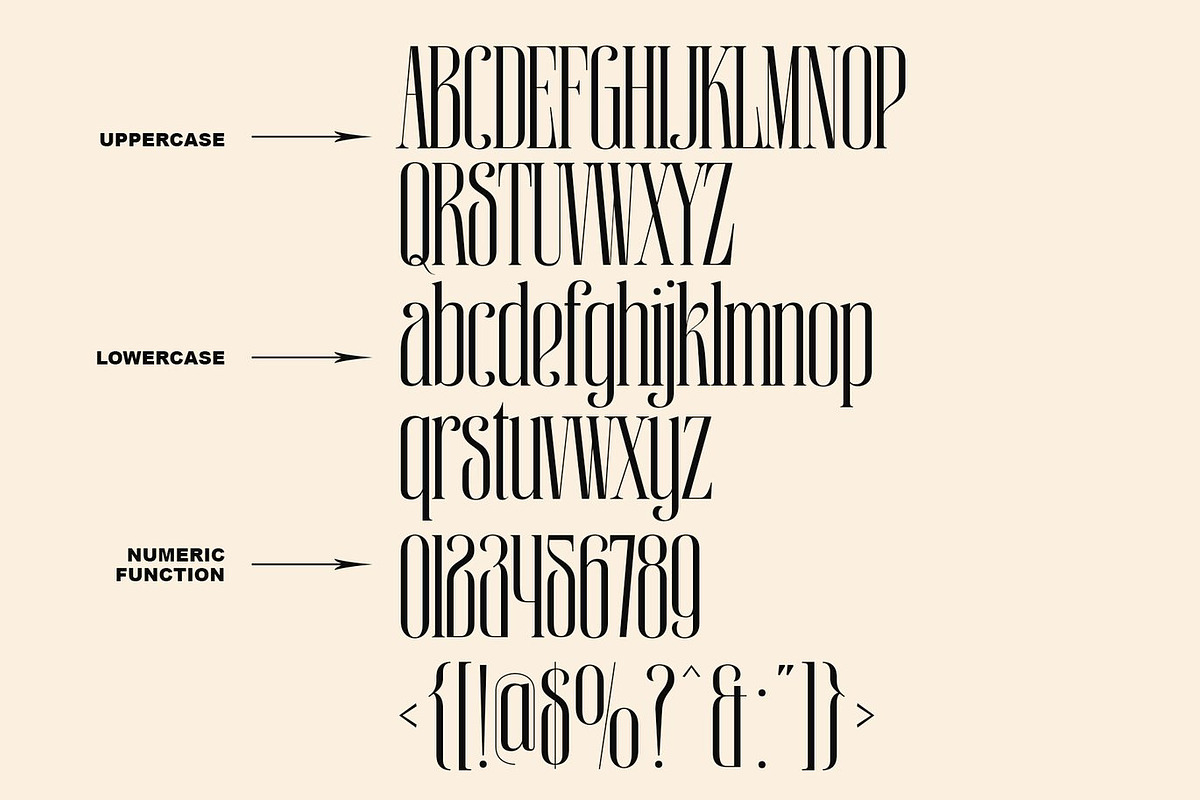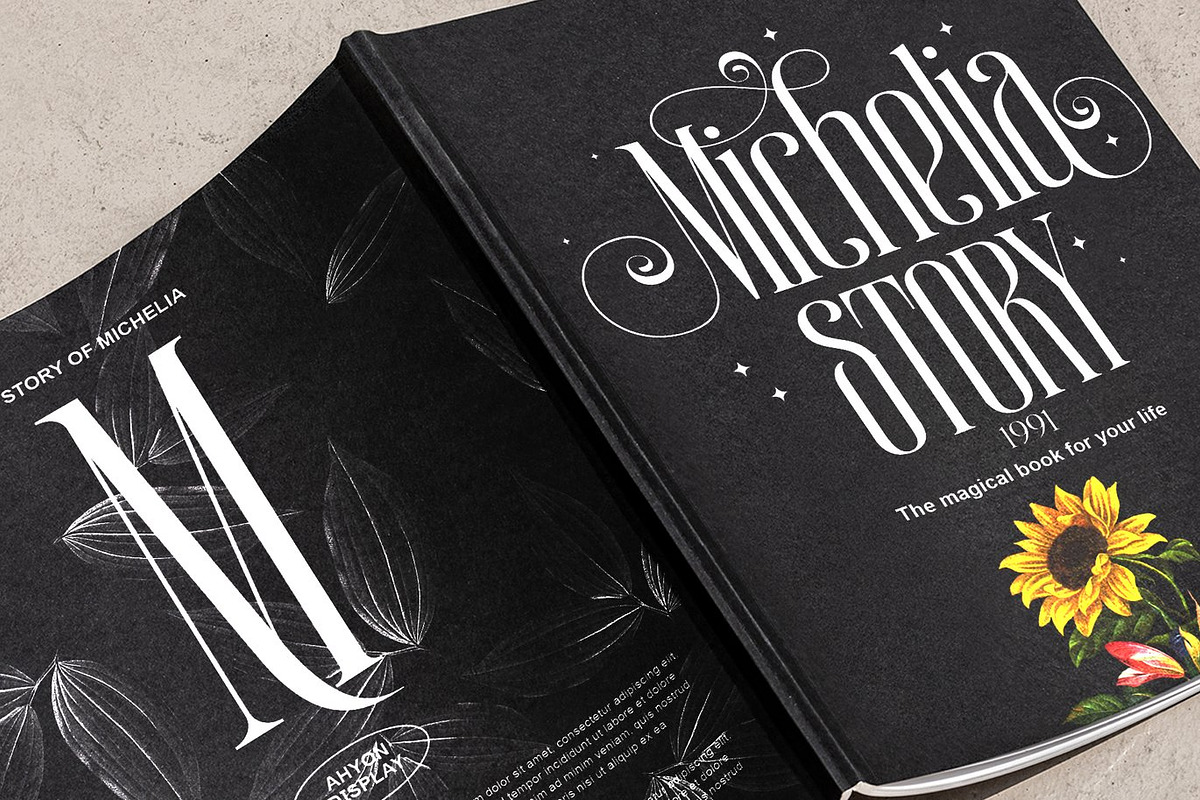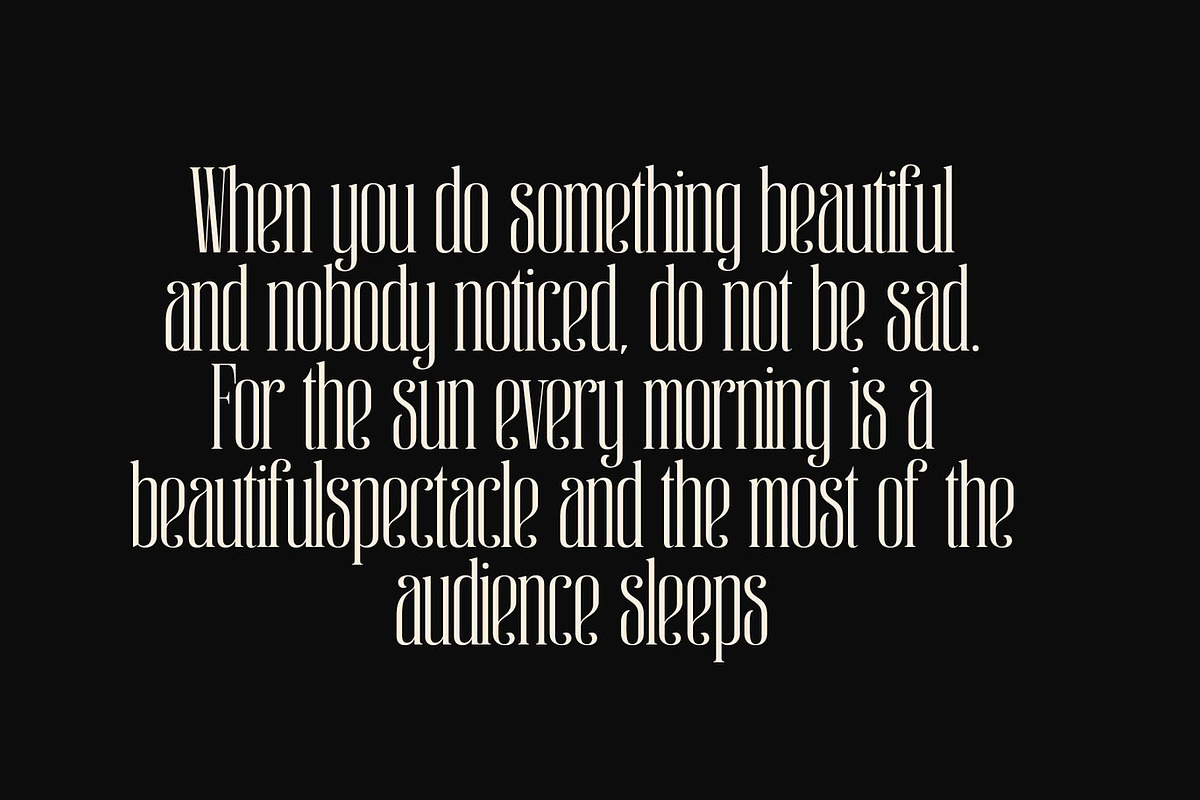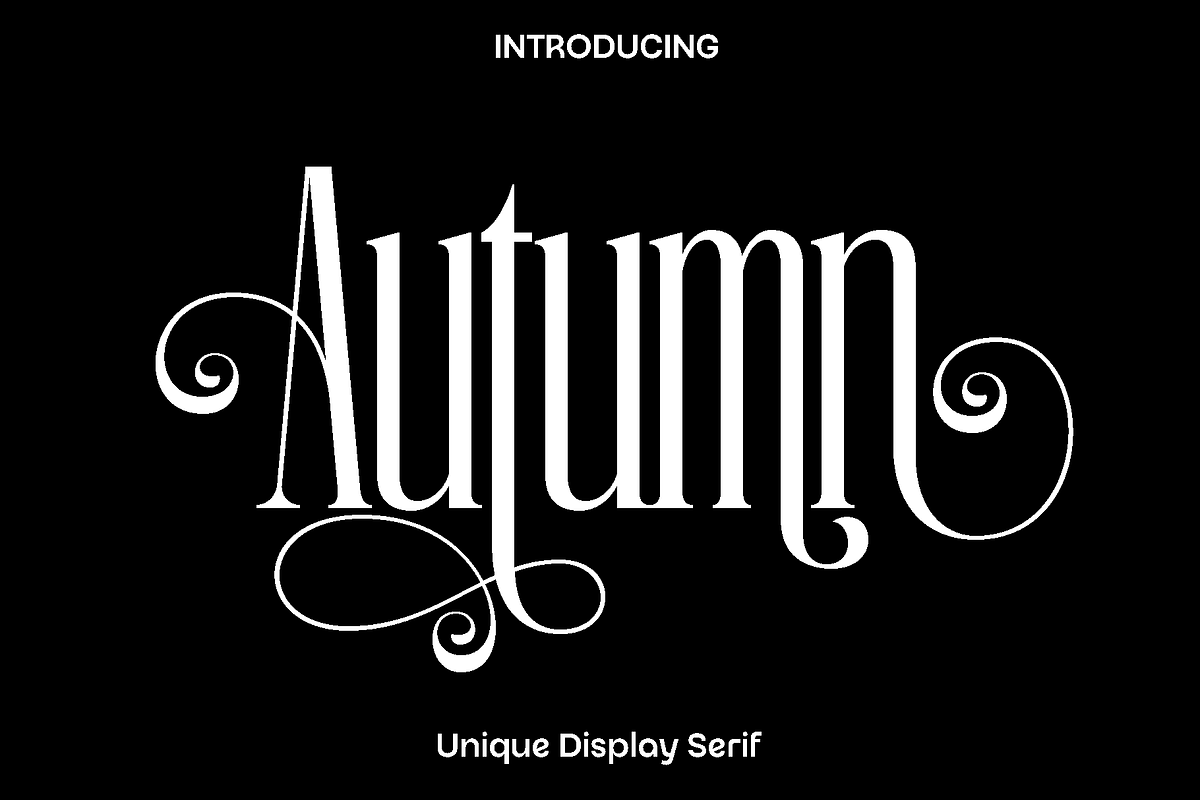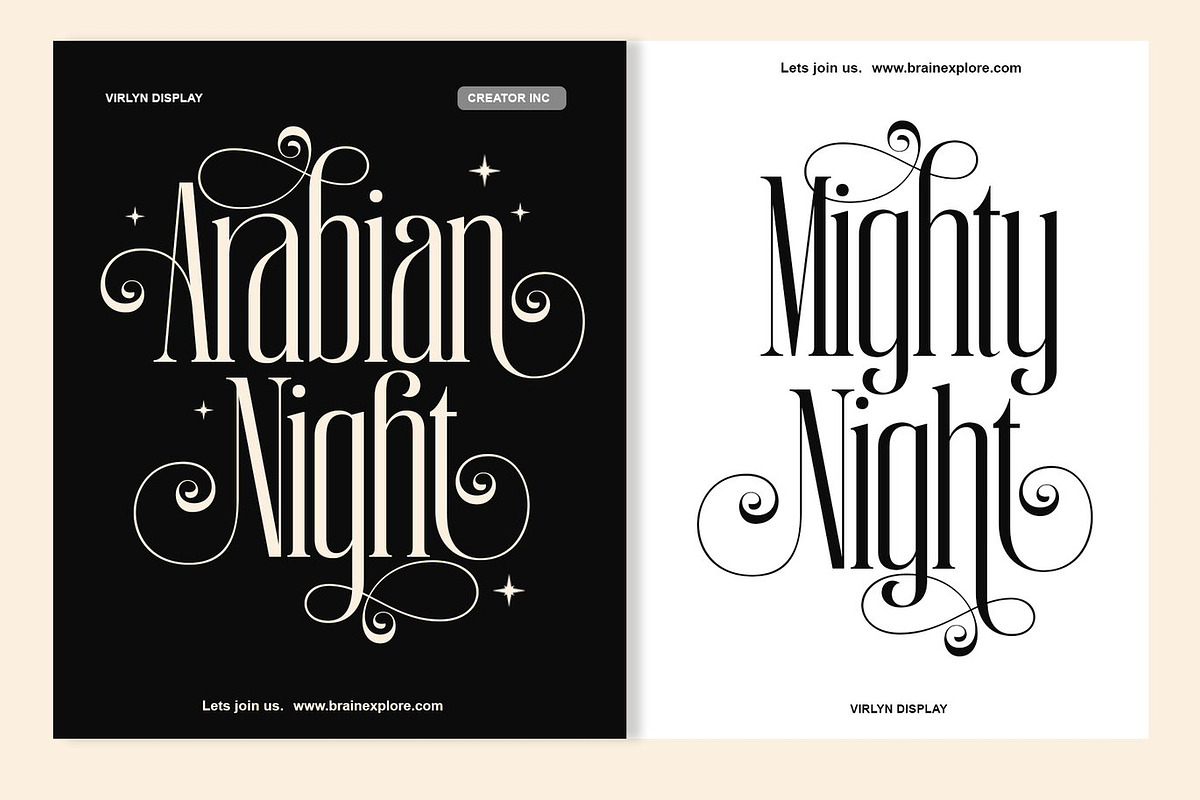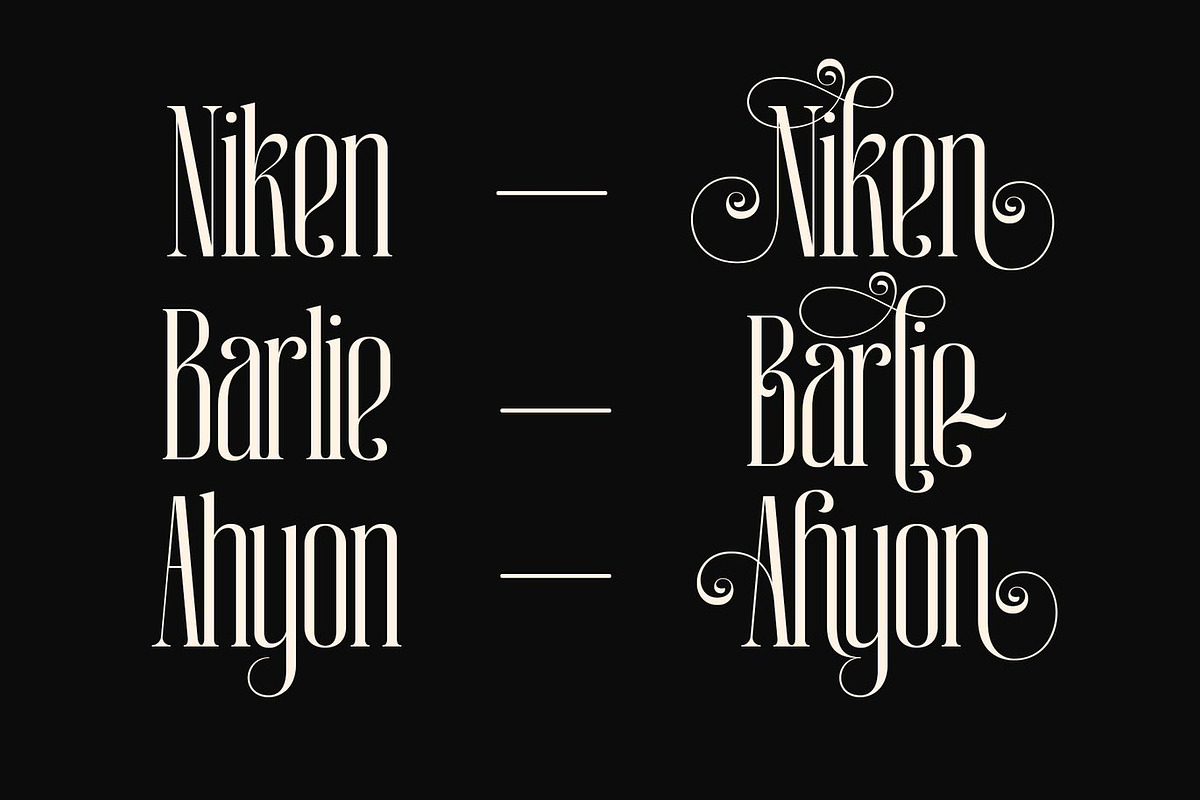
Autumn - Unique Display Serif
Autumn is a beautifully crafted font inspired by the warm and calming atmosphere of the autumn season. Just like the golden leaves and soft sunlight of fall, this typeface carries a natural elegance and a welcoming character that adds charm and personality to any design. Its balanced letterforms and smooth flow create a refined look that feels both modern and timeless.
Designed with versatility in mind, Autumn works perfectly across a wide range of creative projects. It shines in book covers, magazines, logos, branding identities, photography overlays, inspirational quotes, blog headers, posters, and advertising materials. Whether you are creating a sophisticated editorial layout or a stylish brand presentation, Autumn helps deliver a polished and professional visual impression.
Autumn combines clarity with expressive style, making it suitable for both bold headlines and elegant text compositions. The carefully designed characters, stylistic alternates, and ligatures give designers the freedom to craft unique and visually engaging typography. Its harmonious structure ensures readability while maintaining a strong aesthetic presence.
With its warm personality and modern appeal, Autumn brings creativity and elegance together in one versatile font. It is an excellent choice for designers who want their projects to feel inviting, stylish, and memorable across both print and digital platforms.
Autumn Font Features:
• Uppercase and lowercase characters
• Numerals and punctuation
• Functional and stylistic alternates
• Ligatures included
• Multilingual support
• OpenType features